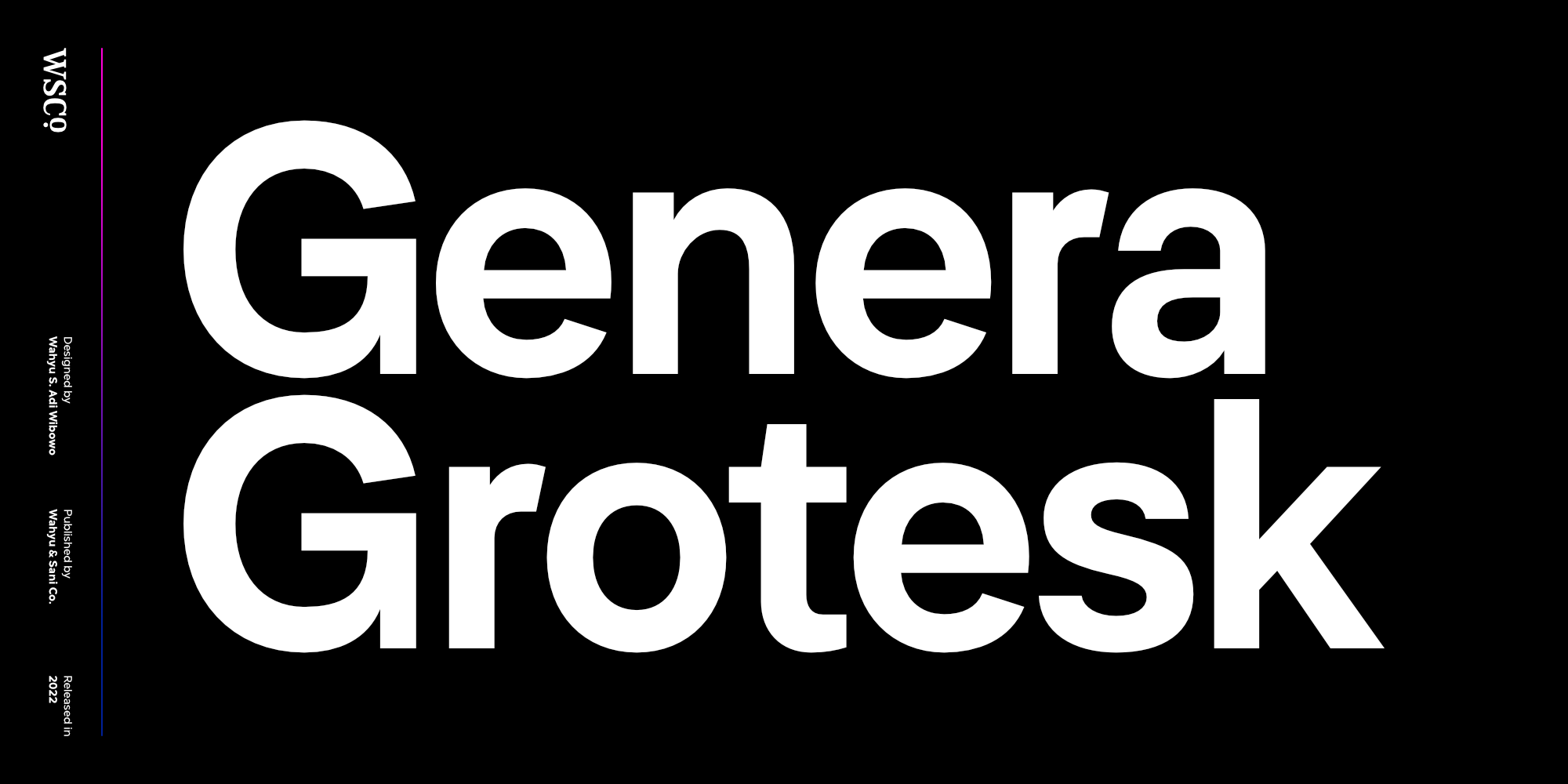
Genera Grotesk Font is perfect for tech startup branding, modern architectural signage, contemporary museum exhibitions, minimalist product packaging, progressive corporate identities, clean app interfaces, industrial design portfolios, and forward-thinking marketing campaigns.
Genera Grotesk Font is exciting because it represents the evolution of classic grotesque typography with its precisely engineered letterforms that balance timeless functionality with contemporary innovation. The typeface embodies the principles of progressive design thinking and rational communication, creating an immediate sense of clarity and purposeful efficiency that resonates with audiences who appreciate intelligent simplicity.
Genera Grotesk Font family includes Thin, Light, Regular, Medium, Bold, and Black weights, each with matching italic variants and extensive language support, providing designers with comprehensive tools for creating systematic visual communications that prioritize accessibility and global reach.
Whether you're developing a technology company's brand system, designing progressive architectural materials, or creating contemporary cultural communications, Genera Grotesk Font Free Download delivers unmatched versatility and modern sophistication. This exceptional typeface perfectly balances historical grotesque traditions with cutting-edge design requirements, ensuring optimal performance across all contemporary media platforms and international markets. The font's neutral elegance and systematic construction make it particularly effective for brands that position themselves as thought leaders in innovation and social progress. Design professionals worldwide consistently select Genera Grotesk Font when projects require typography that communicates intelligence, reliability, and the kind of forward-thinking approach that defines progressive organizations, making it indispensable for technology branding, institutional communications, and any application where systematic typography can enhance user experience while reflecting values of innovation, inclusivity, and the thoughtful design principles that shape a better future for global communication and human understanding.